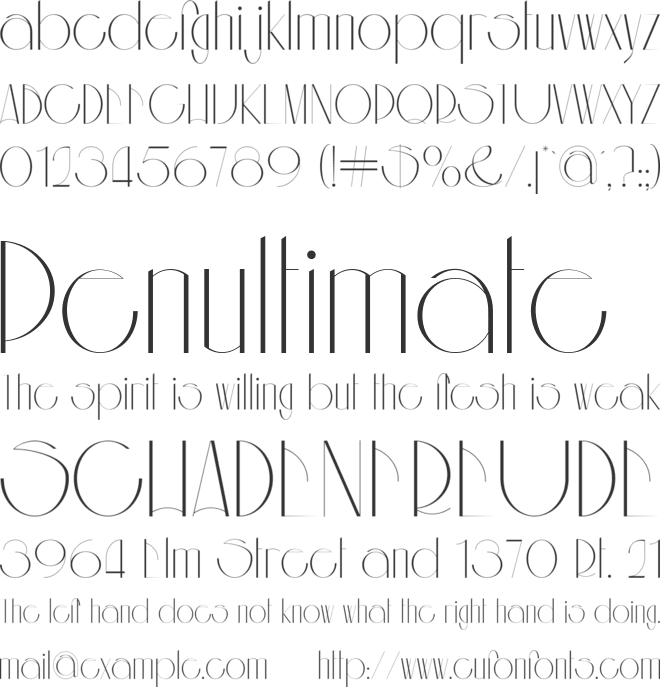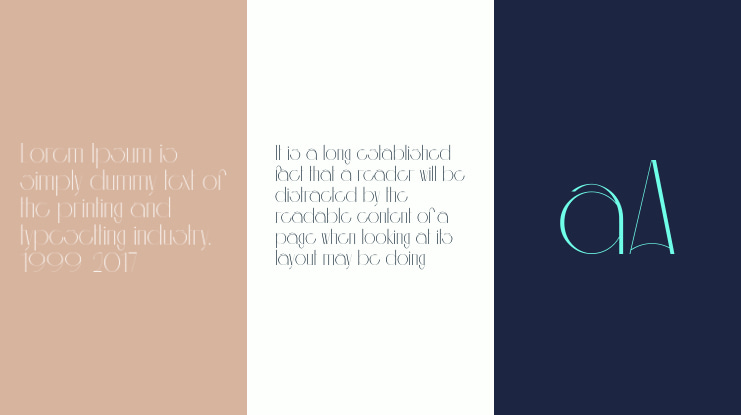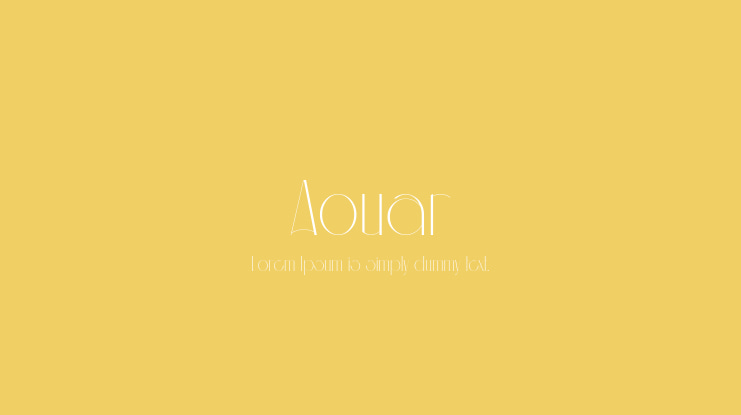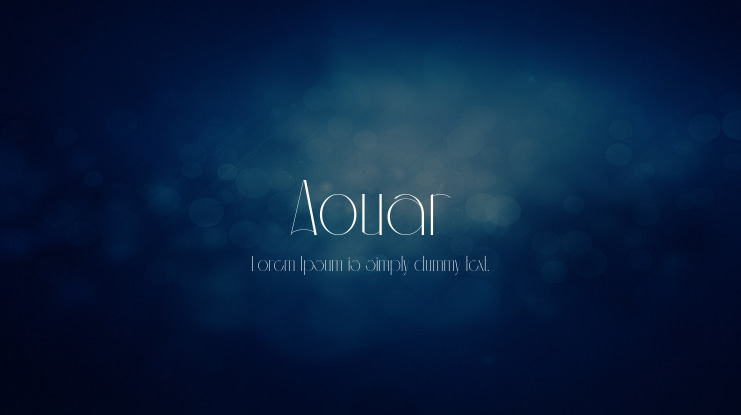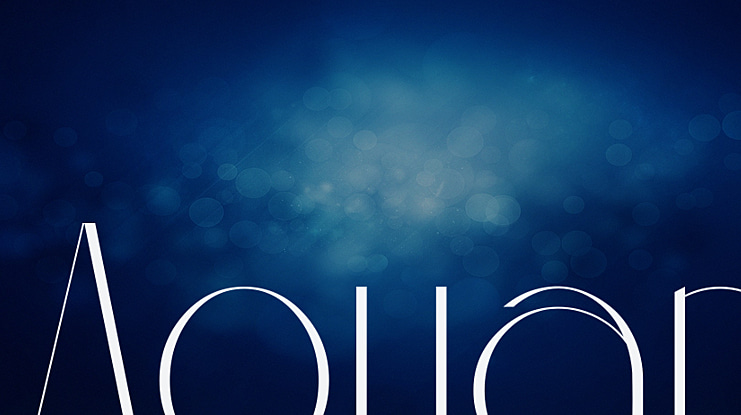
Aouar Font
It’s sans serif typeface created by Bryantamadesign with beautiful alternate, special glyphs, ornament and multilingual support. Inspired by desert landscapes theme with a minimalist, elegant, modern feel that makes the font has a unique personality, can use for branding, social media, posters, packaging, & more. Aouar font OpenType feature, ligatures, alternates, and Multilingual support.